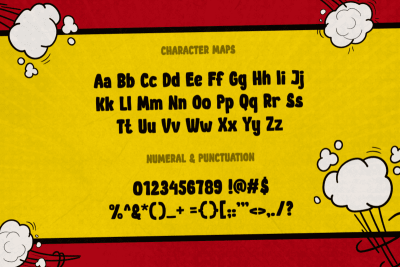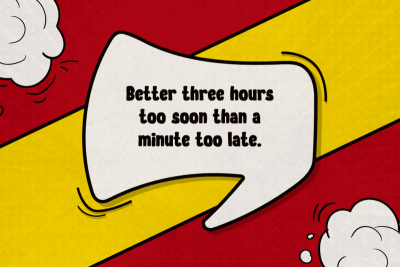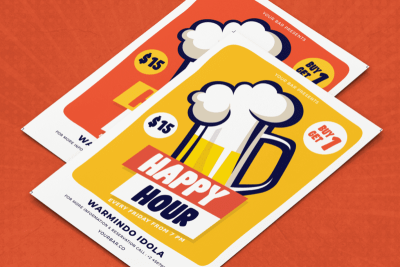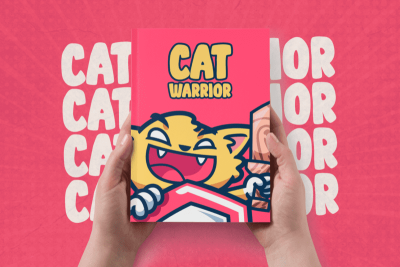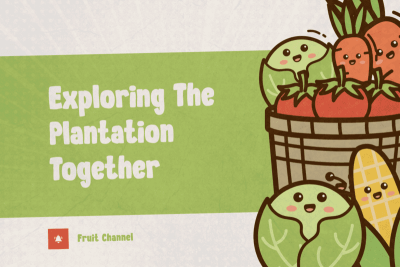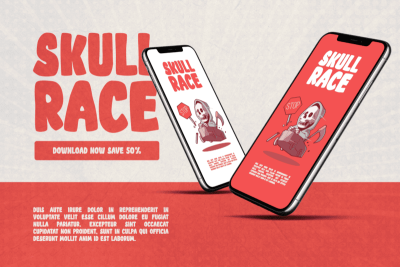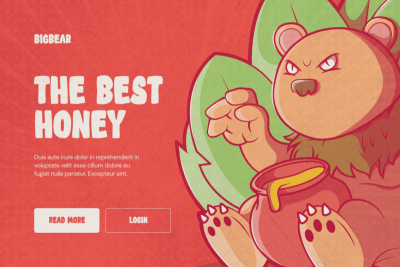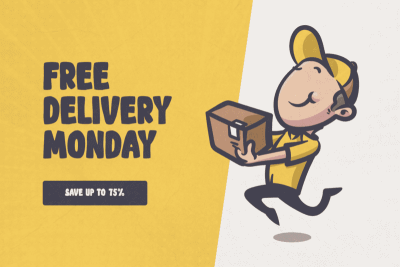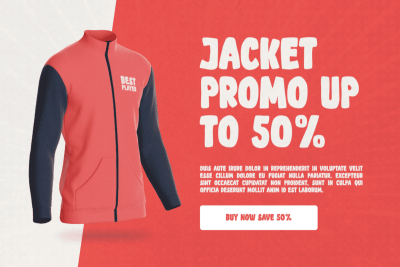
Funny Font Comic Art is a playful, bold, and expressive typeface. It brings fun and energy to any design project! Inspired by classic comic books and cartoons, this font truly captures the lighthearted spirit of hand-drawn lettering. With chunky letters, rounded edges, and slight irregularities, it feels dynamic and friendly. Therefore, it is perfect for designs that need to be engaging and eye-catching.
The font blends a vintage comic style with a modern touch. Its thick strokes and exaggerated proportions make each letter stand out. Consequently, this creates movement and excitement in any composition. Whether youโre designing childrenโs books, playful branding, or fun social media graphics, this font adds a cheerful and lively vibe.
Designed for versatility, Funny Font Comic Art includes uppercase and lowercase letters. As a result, this allows for dynamic text compositions. Additionally, it supports multilingual characters, making it usable in various languages. Its high readability makes it suitable for digital and print formats, including posters, banners, packaging, and merchandise.
Who Should Use This Funny Font Comic Art?
Funny Font Comic Art is ideal for designers, illustrators, content creators, and brands seeking a fun and playful touch. If you work in children’s media, animation, or entertainment, this font adds a joyful and whimsical feel. Moreover, itโs an excellent choice for:
- Childrenโs Book Illustrators & Publishers โ The friendly and expressive style makes it great for book covers, chapter headings, and playful text elements in children’s stories.
- Comic Artists & Cartoonists โ Perfect for speech bubbles, comic panels, and graphic novels, enhancing the storytelling experience with a classic comic-style appeal.
- Branding & Packaging Designers โ Ideal for brands targeting younger audiences or conveying fun and energy. Thus, it works well on packaging, logos, and promotional materials.
- Social Media Creators โ Make your content more engaging with eye-catching captions, memes, and animated videos that stand out on social media feeds.
- Event Planners & Party Organizers โ Great for birthday invitations, party decorations, and promotional materials for fun-filled events.
- Game Developers & App Designers โ Adds charm and character to UI elements and dialogues in mobile games, kid-friendly apps, or interactive experiences.
With its vibrant, quirky, and energetic style, Funny Font Comic Art is a must-have. It helps creatives bring their designs to life with humor and excitement. Ultimately, whether for digital or print projects, this font ensures your message is bold, fun, and engaging!